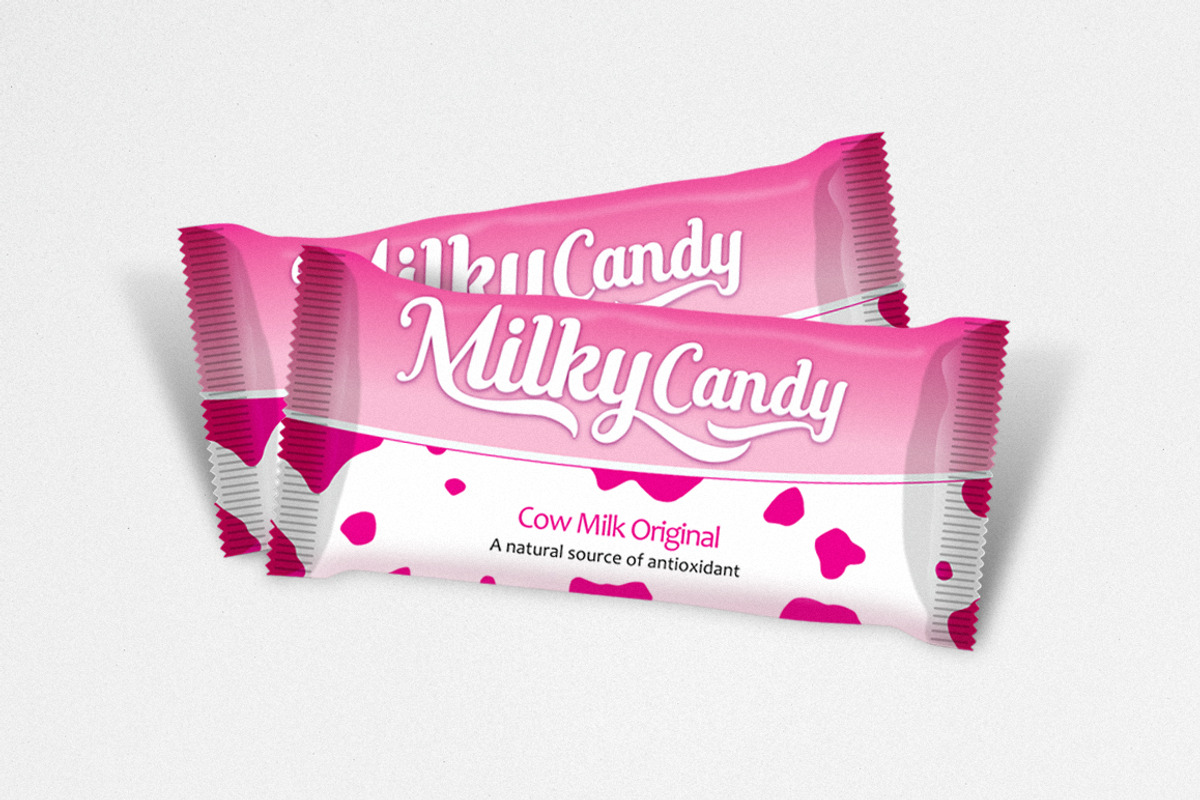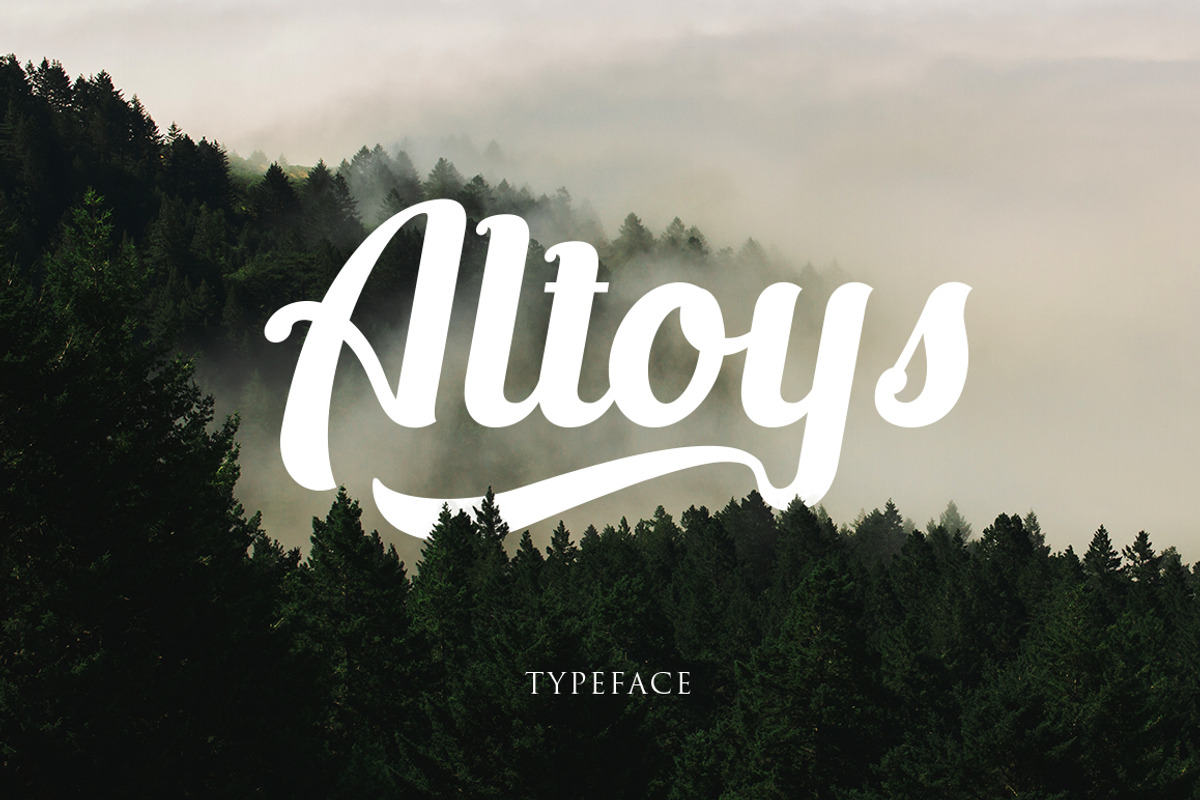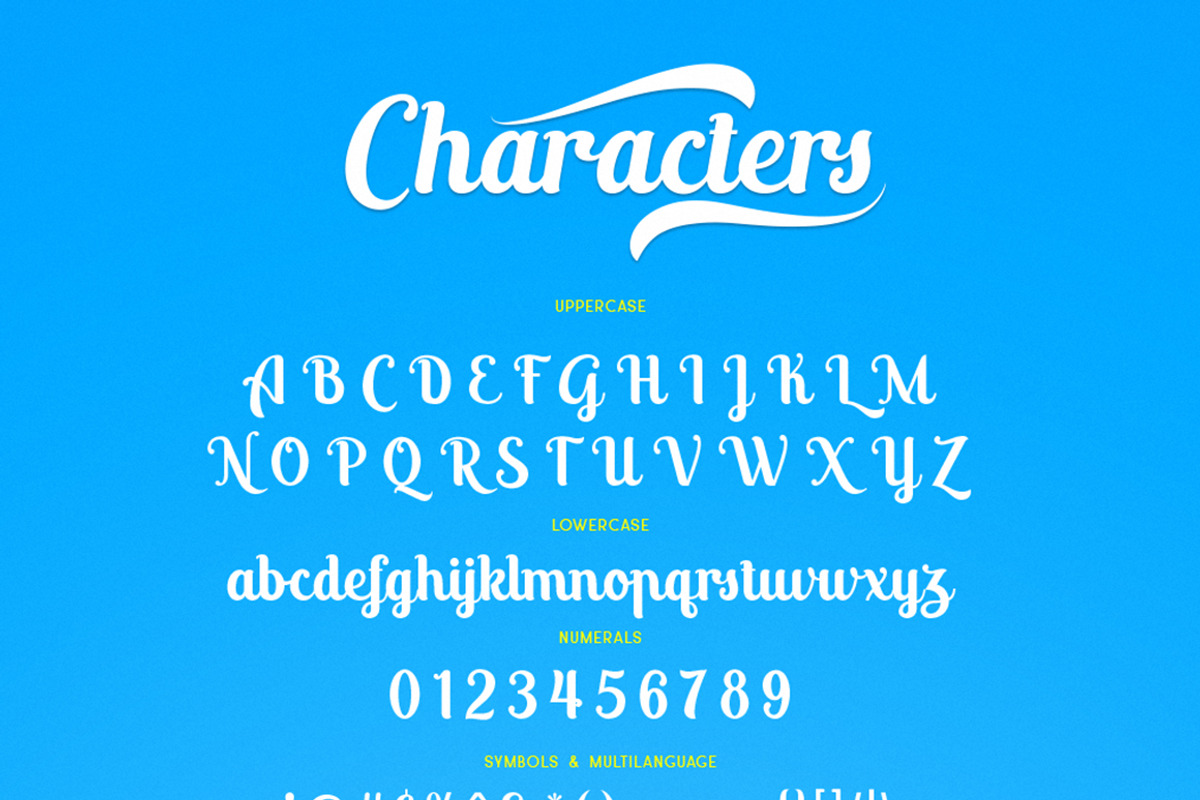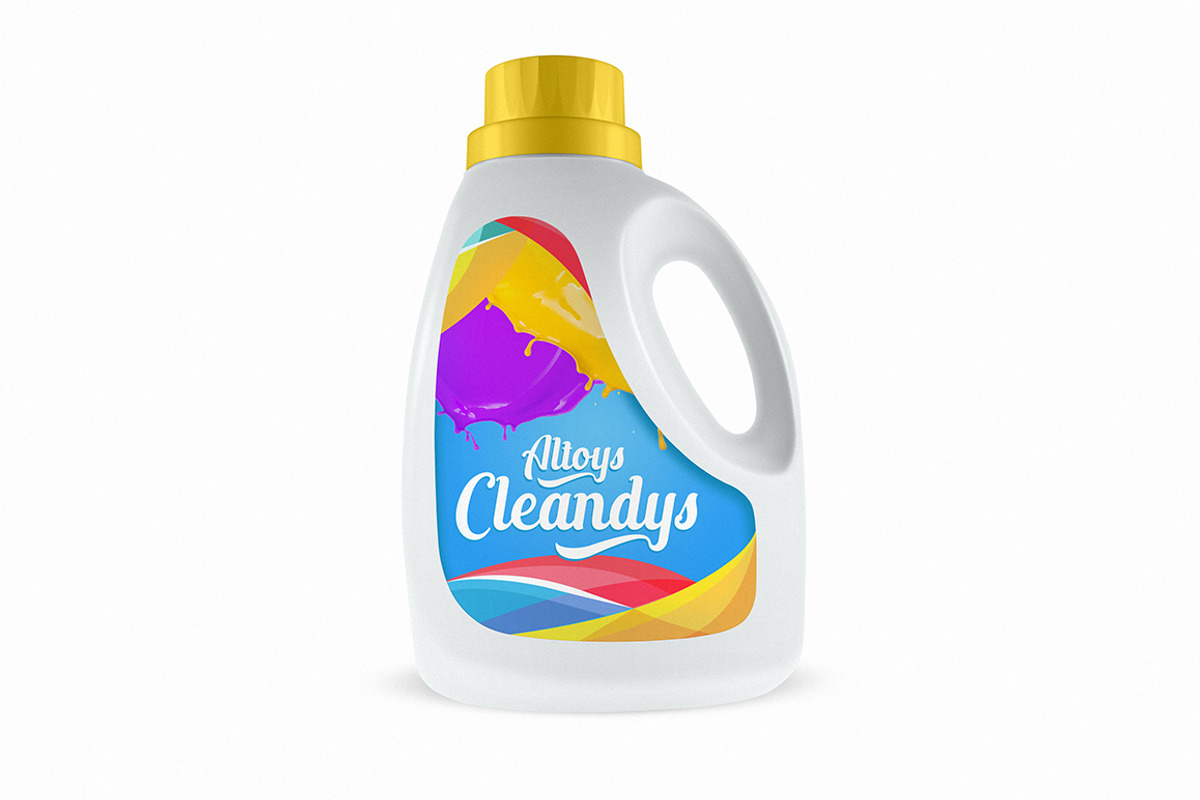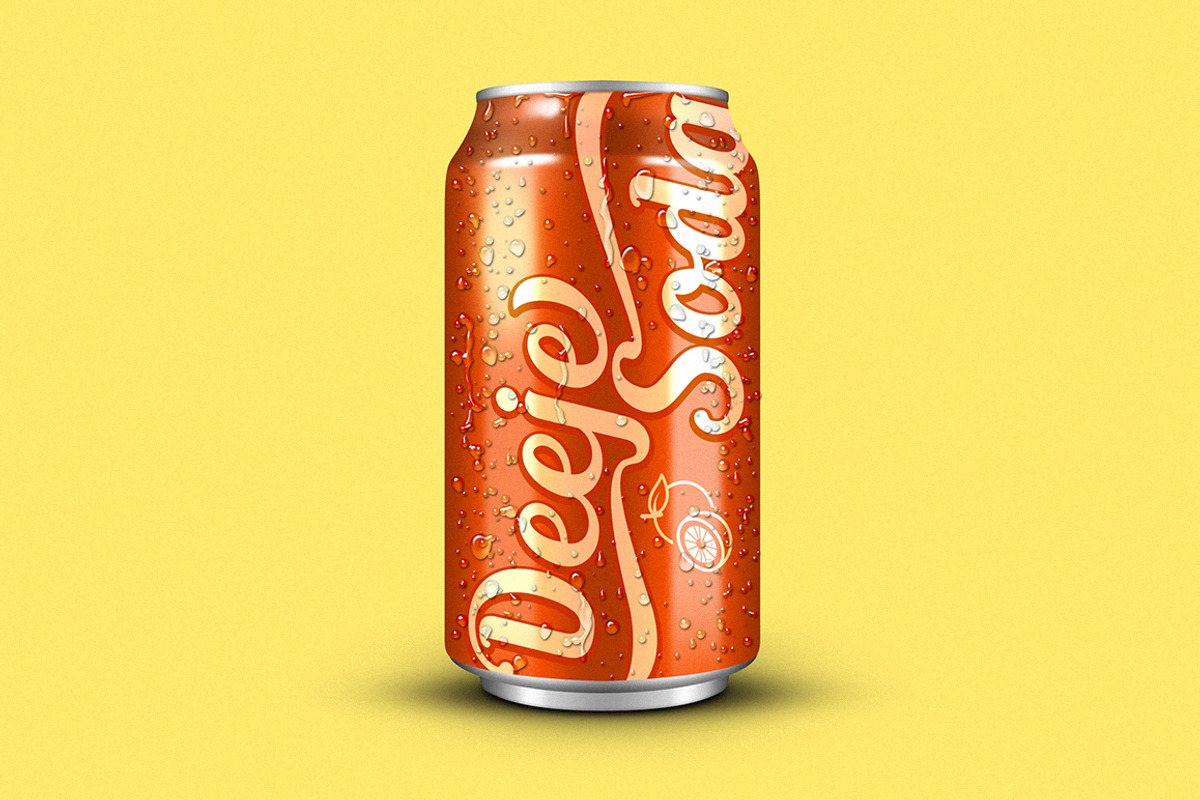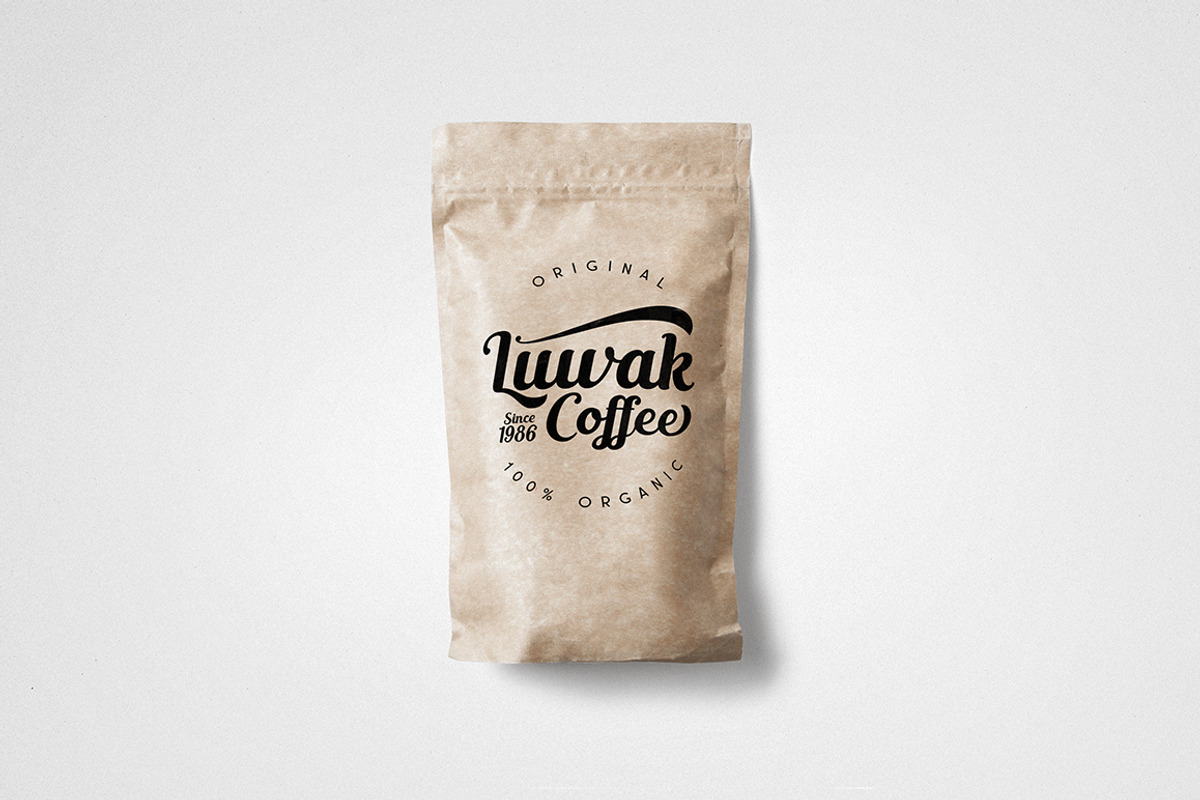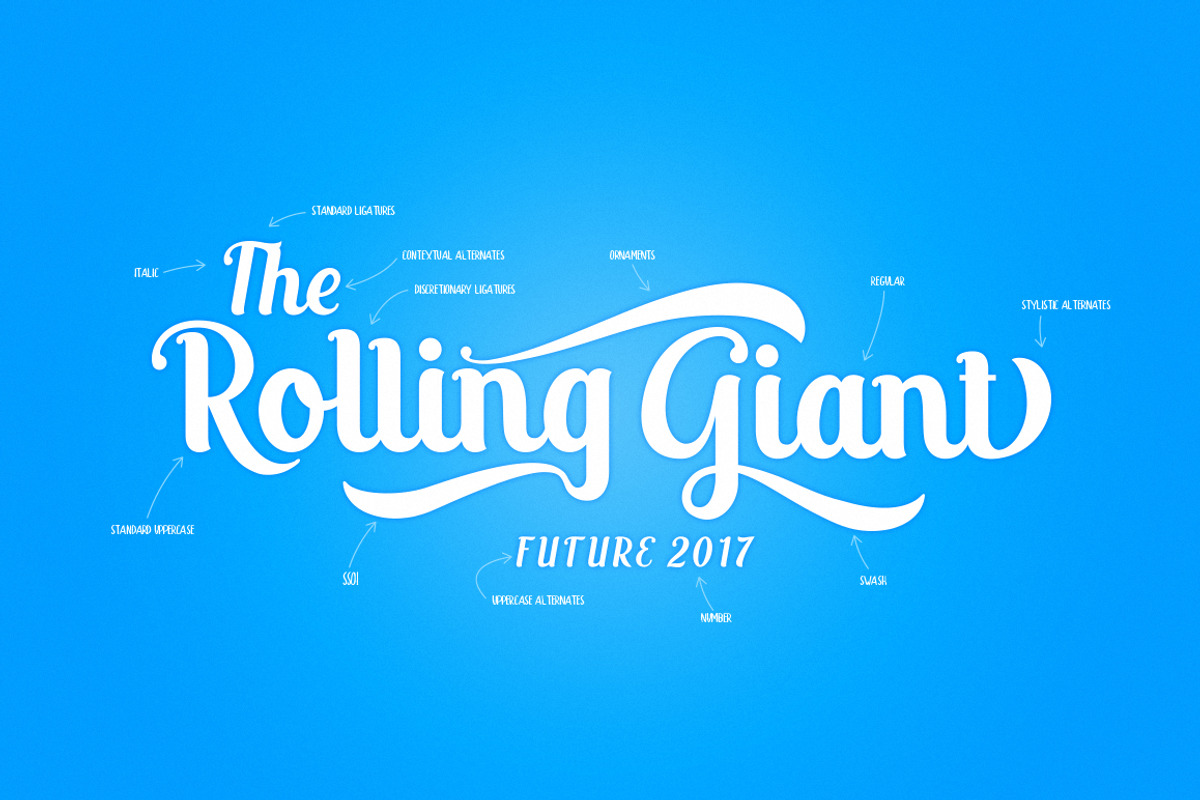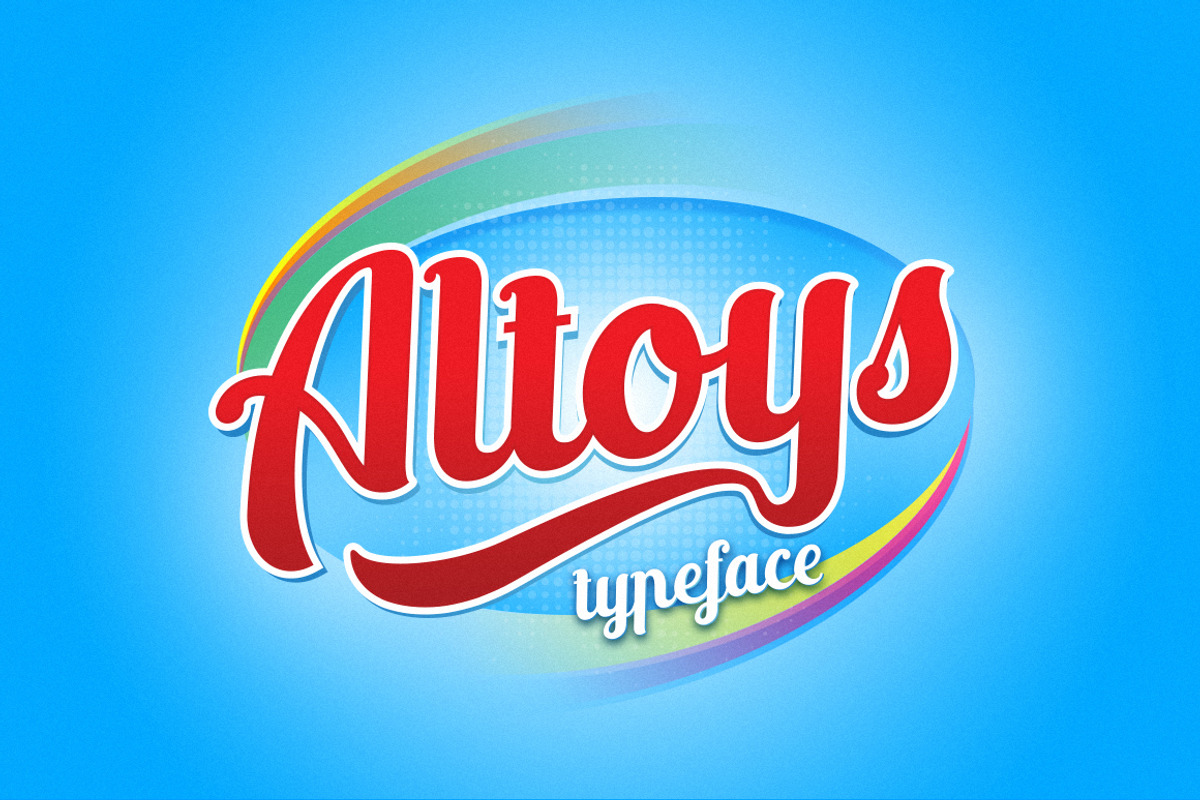
Altoys Typeface
Altoys Typeface by alit design is a font selected for branding, posters, packaging, typography.
- Character uppercase and lowercase
- Altoys Regular
- Altoys Italic
Altoys Typeface by alit design fits naturally into Branding, posters, packaging, typography.